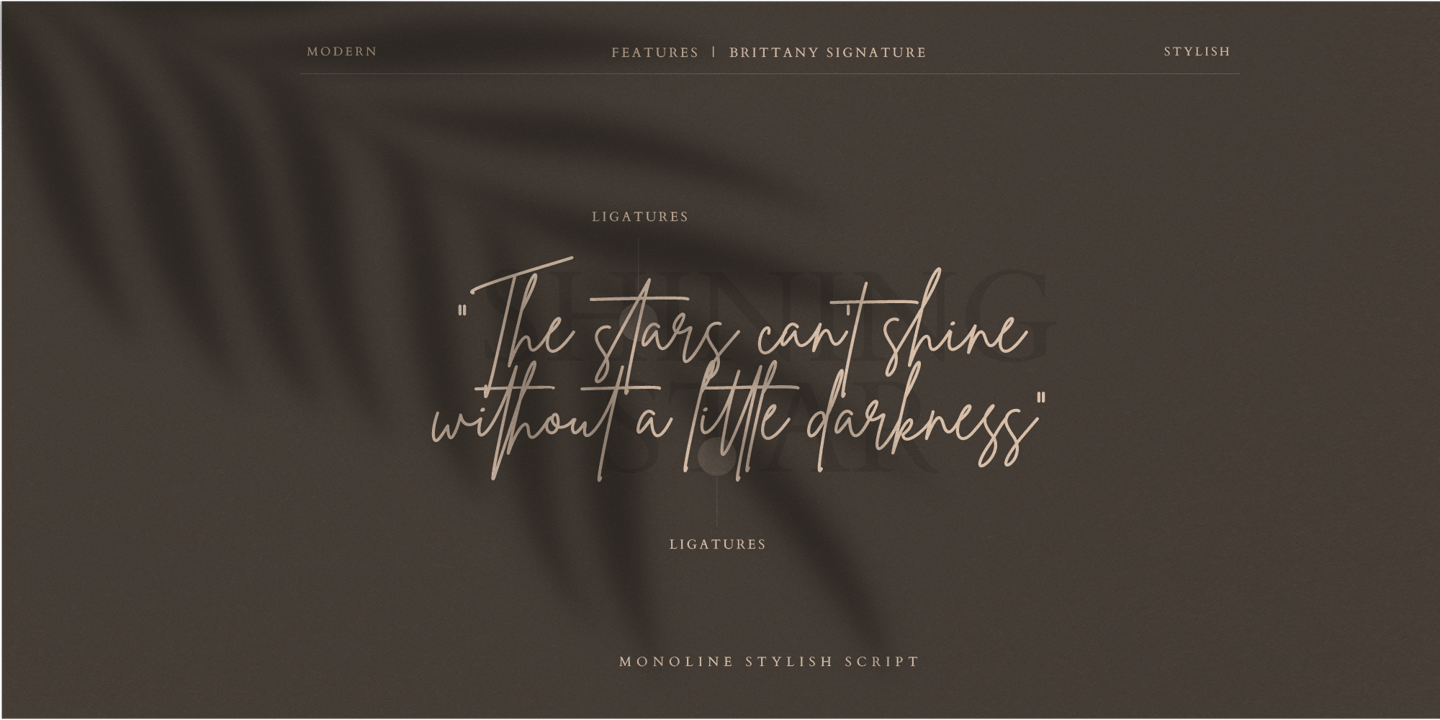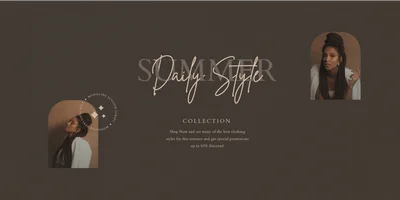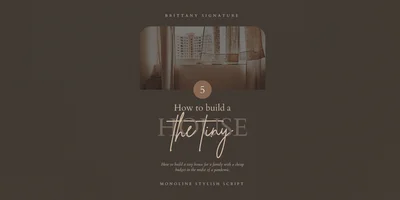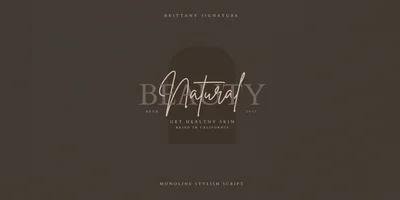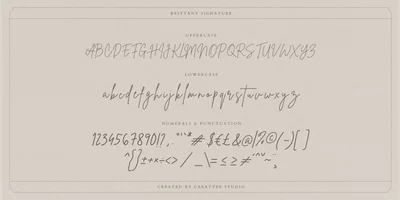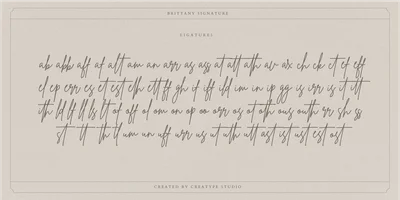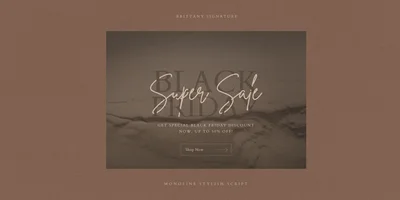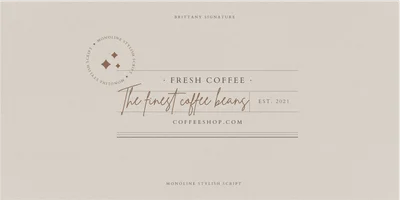
Brittany vs House Script
Brittany and House Script are both display typefaces sharing a script foundation. Where Brittany leans fashion, elegant, House Script brings warm, branding. Compare which suits your Branding project.
| Feature | Brittany | House Script |
| Classification | display | display |
| Language Support | latin | latin |
| Source | Nicky Laatz | House Industries |
Typography for wedding invitations, event invitations, and formal announcements....
Recommended: Brittany
- fashion, elegant design character
- Suited for Feminine and Wedding
- From nicky-laatz
Consider: House Script
- warm, branding design character
- Suited for Casual and Packaging
- From house-industries